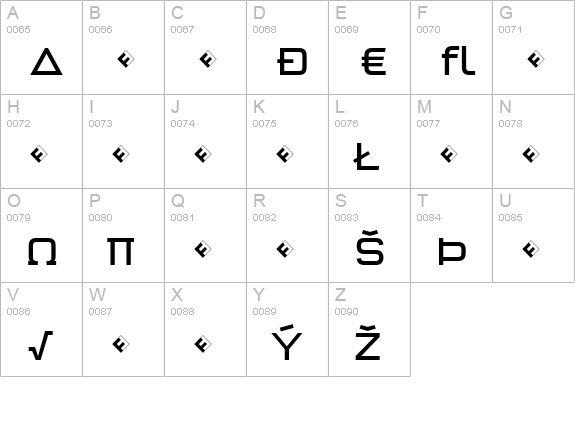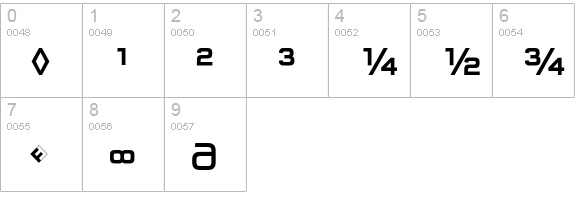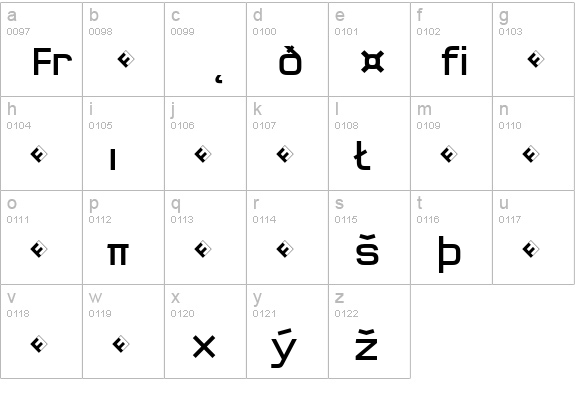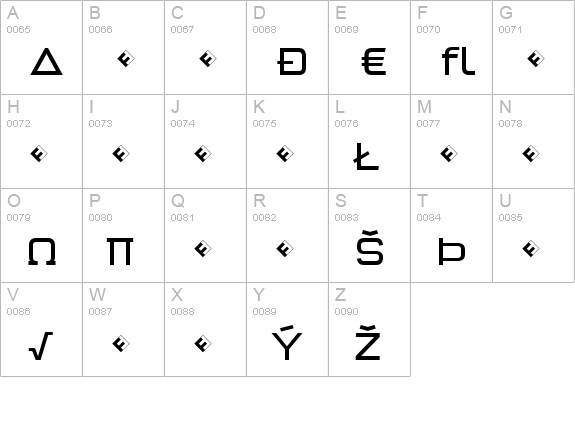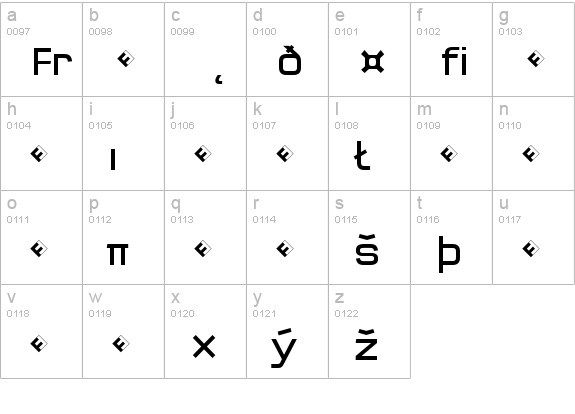
QTypeSquare-BookExpert Font Details
QTypeSquare-BookExpert is a beautifully designed font that exudes elegance and sophistication. It is perfect for any project that requires a touch of class, whether it be book covers, invitations, or branding materials. With its clean lines and balanced proportions, this font is a versatile choice that can adapt to a variety of design styles. What sets QTypeSquare-BookExpert apart is its unique combination of readability and aesthetic appeal. The carefully crafted letterforms ensure that every word is easily legible, while the subtle details and fine strokes add a sense of refinement and artistry. This font is truly a masterpiece that will elevate your designs to new heights. One of the best things about QTypeSquare-BookExpert is that it is available for free download at FontsMarket.com. This means that you can enjoy the beauty and versatility of this font without having to spend a dime. Whether you are a professional designer or a hobbyist, this font is a valuable addition to your collection. So why wait? Enhance your designs with the timeless beauty of QTypeSquare-BookExpert. Download it for free at FontsMarket.com and unleash your creativity today.